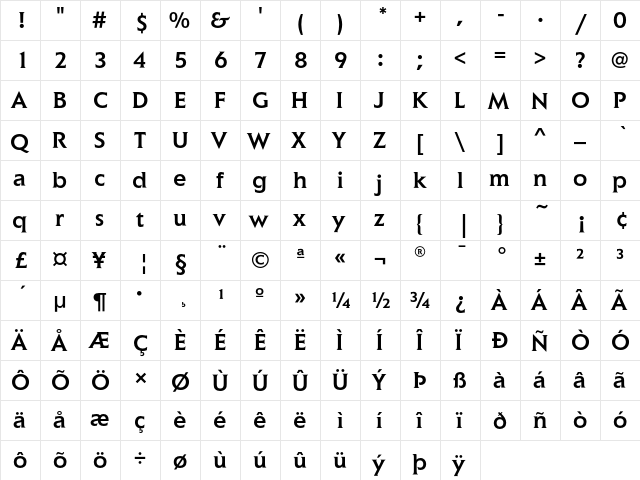
ElanEF Medium
Design Context for ElanEF Typeface
ElanEF takes a measured approach to typography — its balanced proportions and neutral character make it a reliable workhorse for both digital and print work.
Pro Tip: Use ElanEF in both headline and body roles to test its range before committing to a single application.